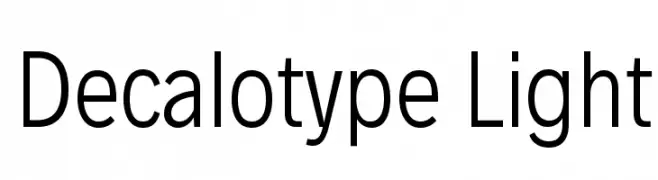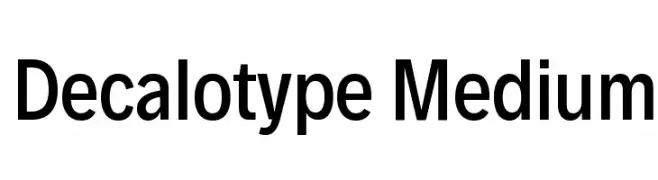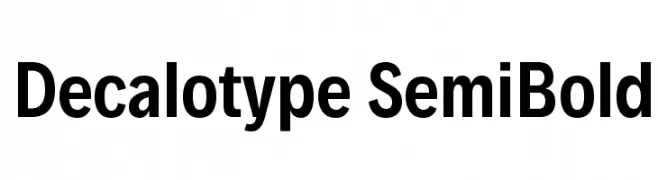
A bold, modern font with strong geometric forms and consistent weight.
A bold, italic font with a dynamic and impactful style.
A sleek, modern italic font with clean lines and smooth curves.
A modern, sans-serif font with clean lines and balanced spacing.
A sleek, modern, light italic font with smooth strokes and low contrast.
A modern sans-serif font with clean lines and geometric shapes.
A modern, italic sans-serif font with medium weight and normal spacing.
A clean, modern sans-serif font with uniform width and excellent readability.
A modern, semi-bold sans-serif font with clean lines and strong legibility.
A modern, semi-bold italic sans-serif font with a sleek, condensed style.